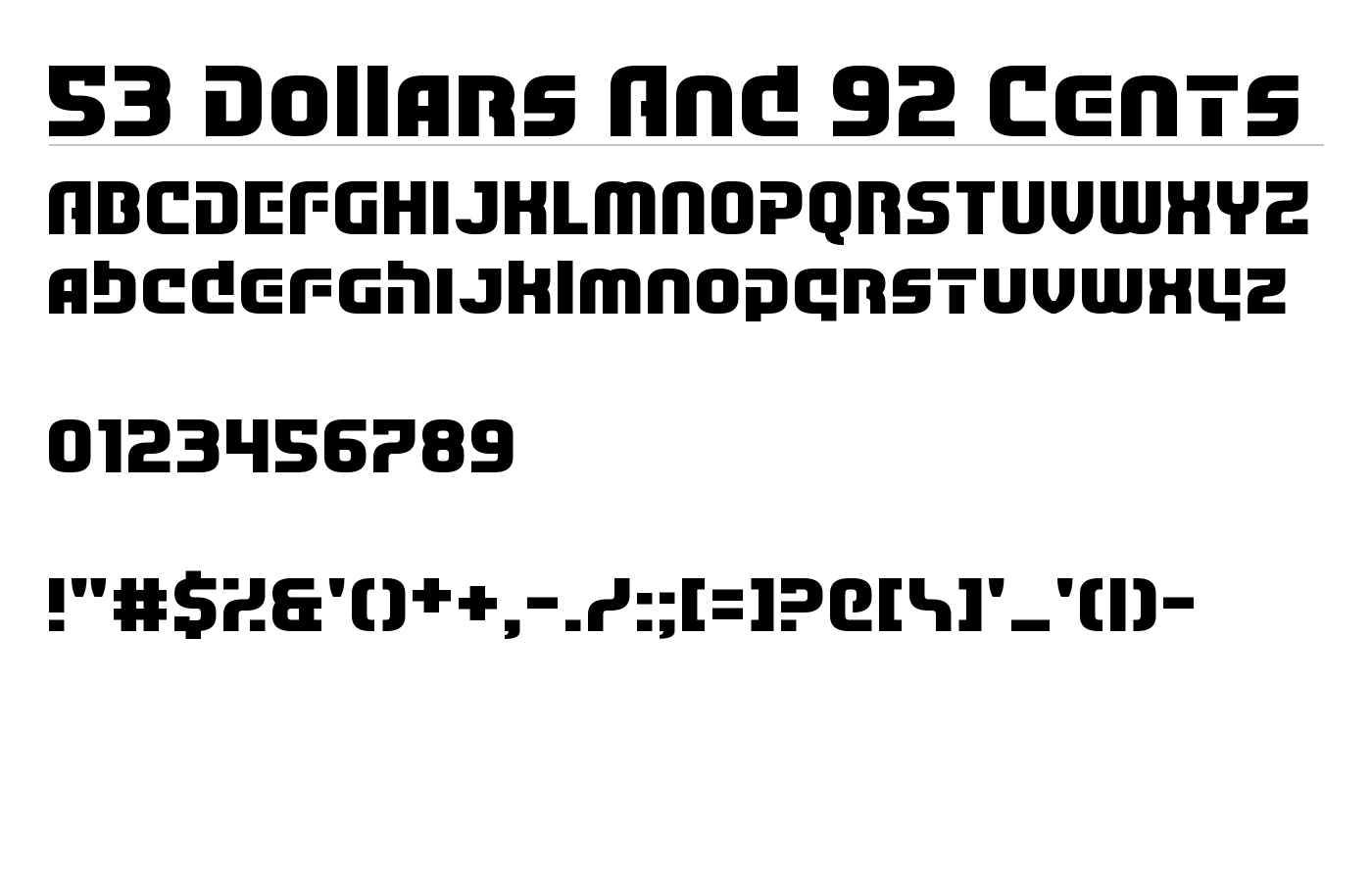
53 Dollars And 92 Cents is a bold, condensed sans serif font with a futuristic, blocky style that commands attention. Its strong geometric shapes and distinctive letterforms give it a modern, industrial personality, making it ideal for impactful headlines, logos, and branding that seeks a tech-savvy or urban vibe. This font works best where boldness and readability are key, especially in posters, packaging, and digital media.
53 Dollars And 92 Cents Font
About 53 Dollars And 92 Cents Font
| Font family | 53 Dollars And 92 Cents Font |
| Designer | AM |
| Trademark | 53 Dollars And 92 Cents by Chequered Ink. |